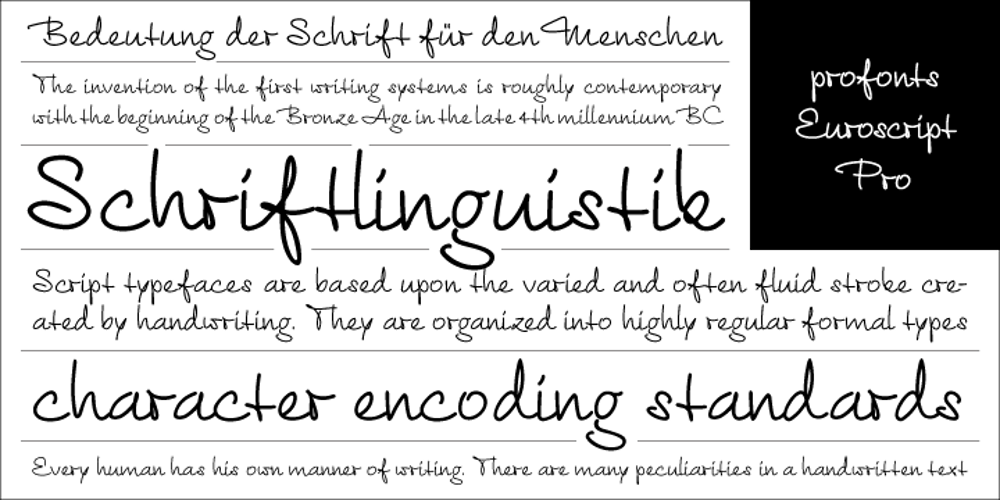
Euroscript Font Family was designed by Ralph M. Unger and published by profonts. Euroscript contains 1 styles and family package options. Euroscript Pro is the handwriting of Ralph M. Unger, a very talented and hard-working German type designer. Unger has redesigned a large number of beautiful ancient typefaces during the last few years. Peter Rosenfeld of profonts persuaded him to try and produce his own very beautiful handwriting. Kind of hesitant at the beginning of the design process, Unger’s joy and excitement about the project was continuously growing during the design process. He designed not only the standard character complement West, but added all of the Eastern European Latin glyphs and, on top of that, even the complete Cyrillic characters. Born and grown up in Th�ringen, former East Germany, Unger has a fair knowledge of Polish and also Russian (Cyrillic). Euroscript Pro is a very beautiful, casual, informal and modern handwriting of a contemporary type designer. Even though a digitized handwriting, it keeps a very natural and pleasant look, at the same time being generous and well-readable. The individual characters combine quite easily and perfectly with no need for extra variants.Euroscript Pro is well-suited for plenty of applications, e.g. personal correspondence, invitations, greeting cards, headlines etc.Euroscript Pro is supplied in the complete Latin character set (West + East) plus Cyrillic.